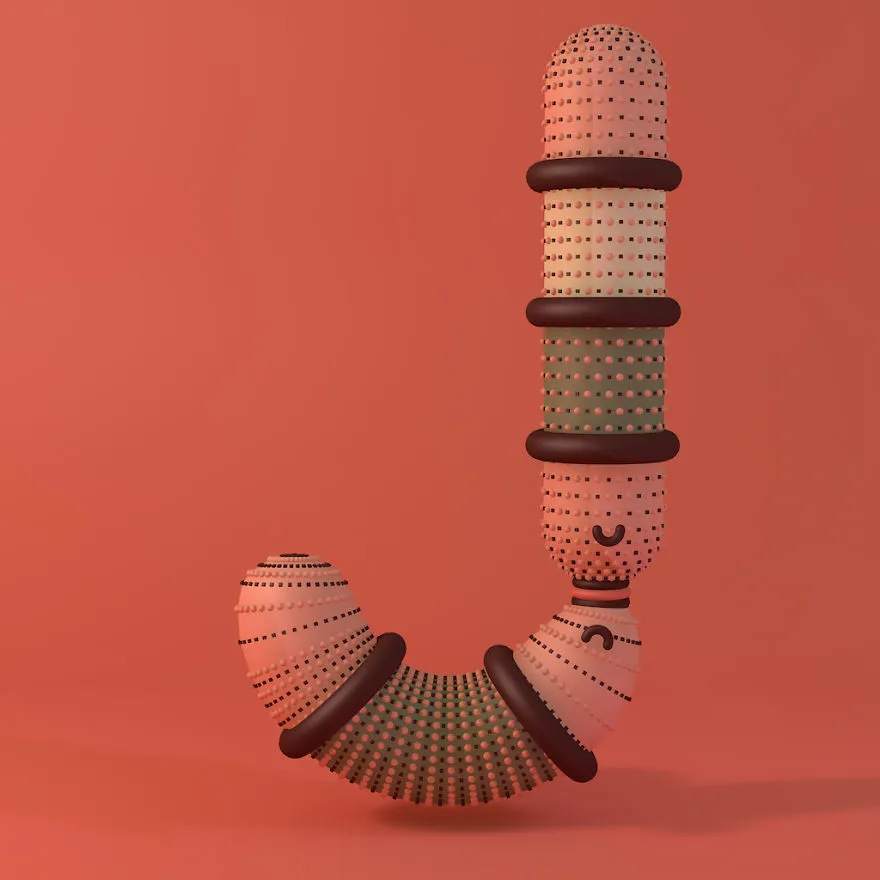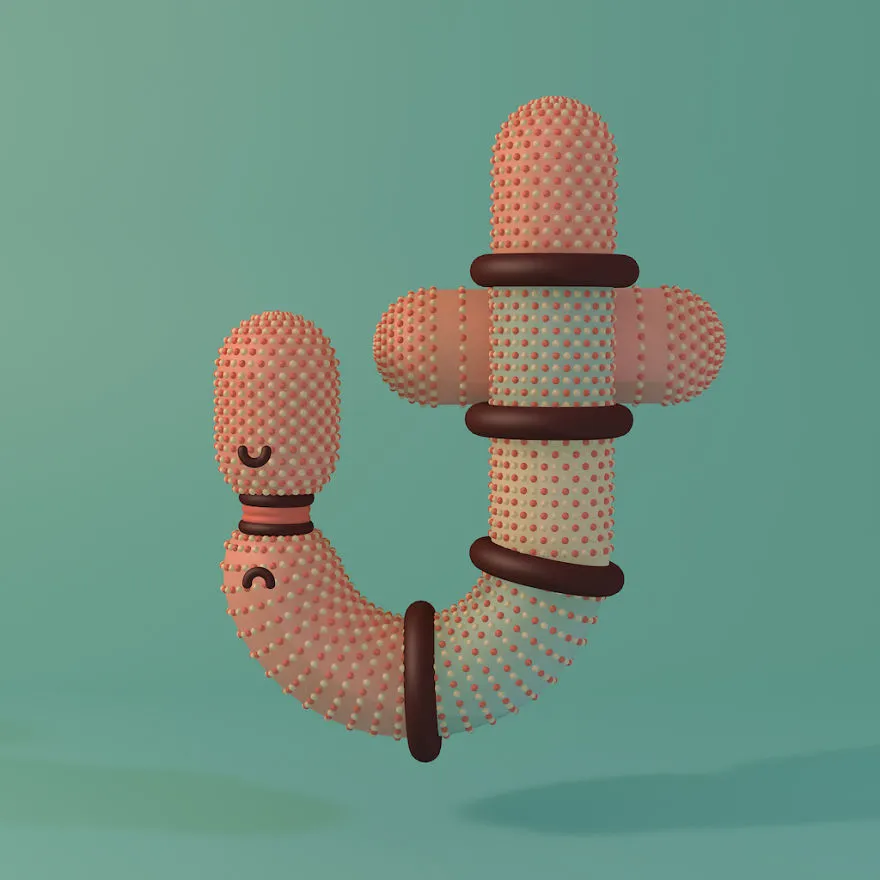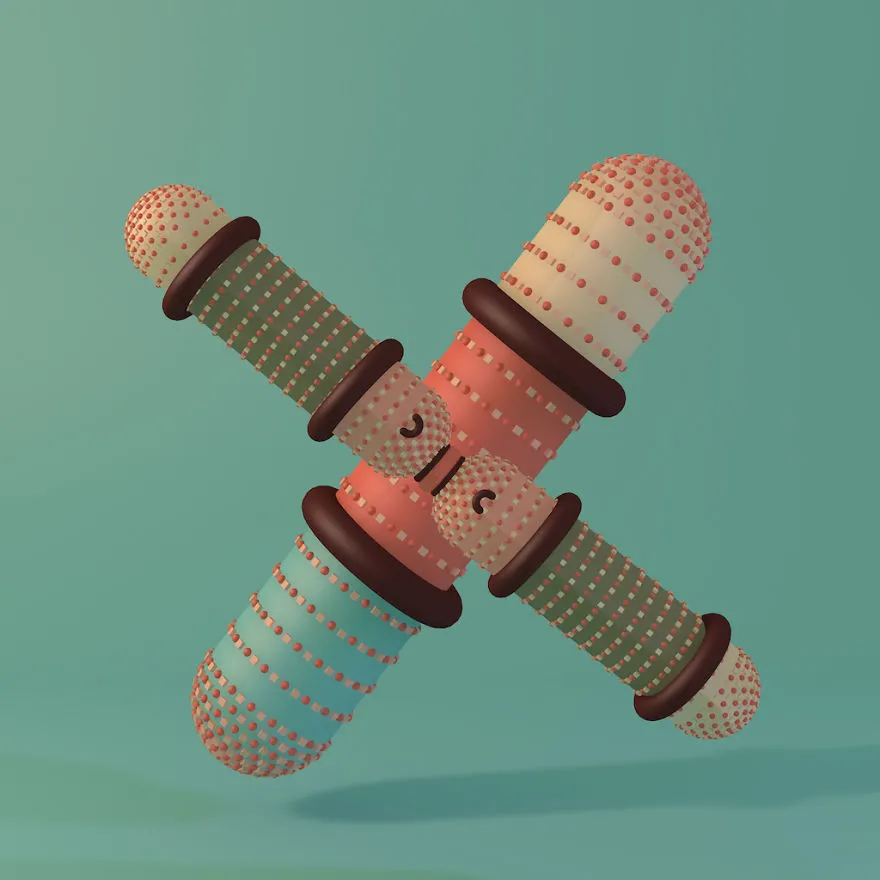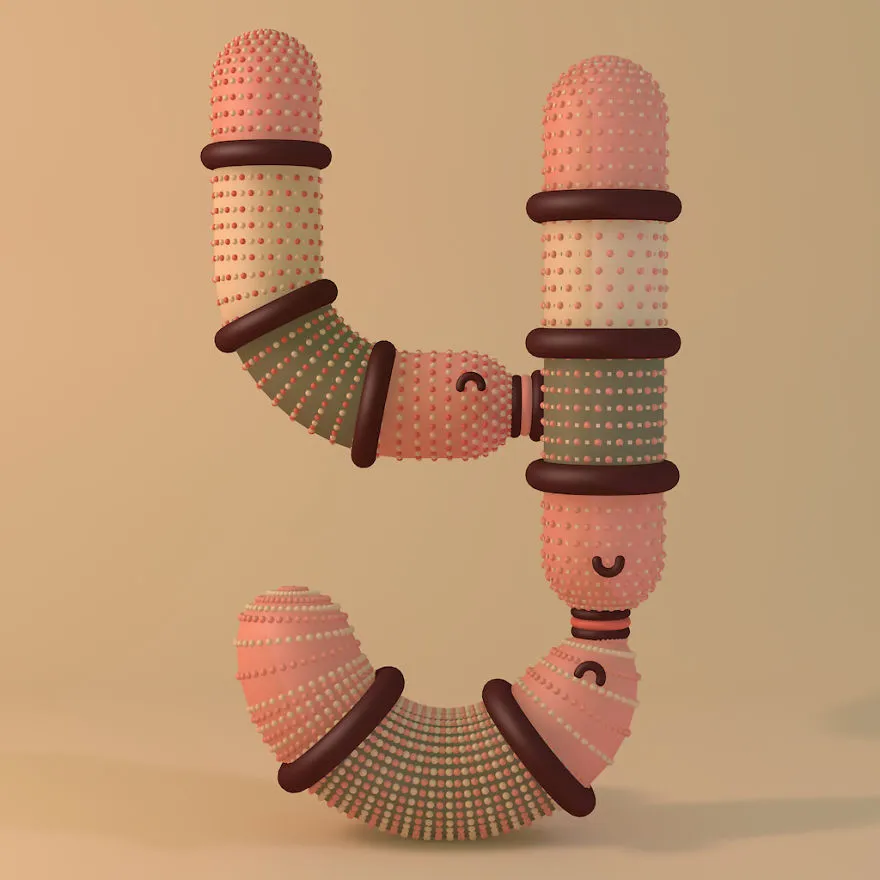
Meet Snuggle Font - an alphabet of visual letters I created which stay together by settling into a warm position and kissing to keep its form.
A warm font by nature, Snuggle Font spreads warmth, humor, and a strong urge to kiss to all those who view it. While creating the font, I began to think quite a lot about kissing (as you can well imagine!) It is quite bizarre how the pressing of lips can seal such a strong bond between people… and even letters!
While some letters of the snuggle font kiss quite passionately, for others it is more of a limp lipped affair. Is there anything worse than a limp lipped kiss?! I think not!
Letter A
Letter B
Letter C
Letter D
Letter E
Letter F
Letter G
Letter H
Letter I
Letter J
Letter K
Letter L
Letter M
Letter N
Letter O
Letter P
Letter Q
Letter R
Letter S
Letter T
Letter U
Letter V
Letter W
Letter X
Letter Y
Letter Z